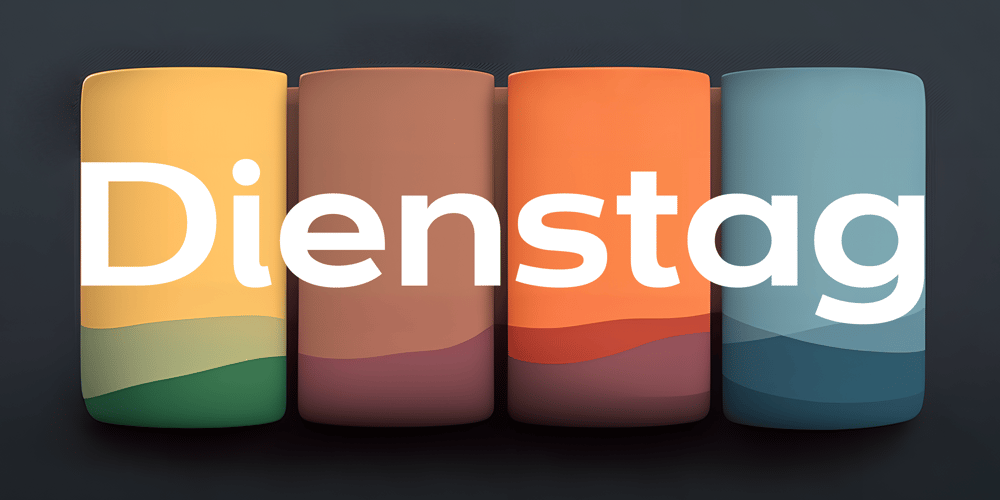
Dienstag Font Family was designed by Jeremy Dooley and published by insigne. Dienstag contains 20 styles and family package options. With its extended sans-serif style, Dienstag boasts a sleek and sophisticated look that’s perfect for a wide range of projects. Whether you’re designing a website, creating branding materials, or producing print publications, Dienstag’s refined elegance is sure to make a lasting impression.Compared to Montag, Dienstag has a slightly more formal feel, thanks to its lack of rounded terminators. But that doesn’t mean it’s any less versatile – in fact, Dienstag’s four original weights have now been expanded to ten, giving you even more flexibility in your designs. With OpenType features that include simplified versions of many characters, you can easily create unique and eye-catching titles that stand out from the crowd.But Dienstag is just one part of the larger Montag superfamily, which also includes Mittwoch, and Donnerstag. Each font in this collection offers its own unique style and flair, giving you a wealth of options to choose from when it comes to your next project. Whether you’re looking for a bold and dynamic font or a more refined and understated style, you’re sure to find the perfect fit in the Montag family.So why wait? Check out Dienstag and the rest of the Montag superfamily today, and start creating designs that are sure to captivate and inspire! With its elegant style and versatile functionality, Dienstag is the perfect choice for designers who demand the best.